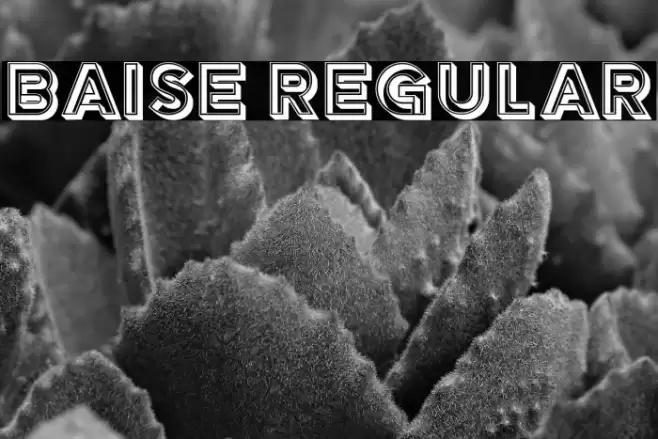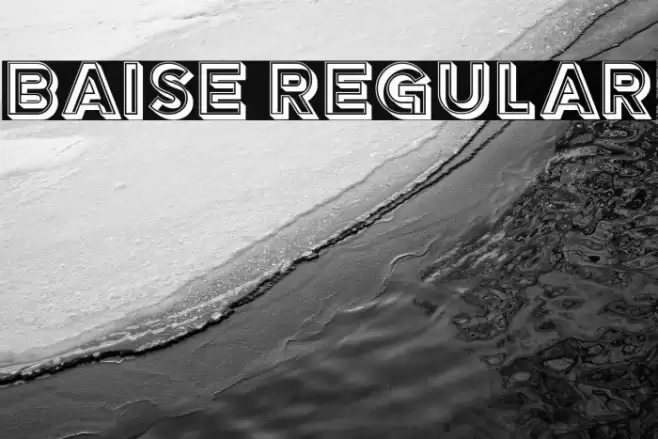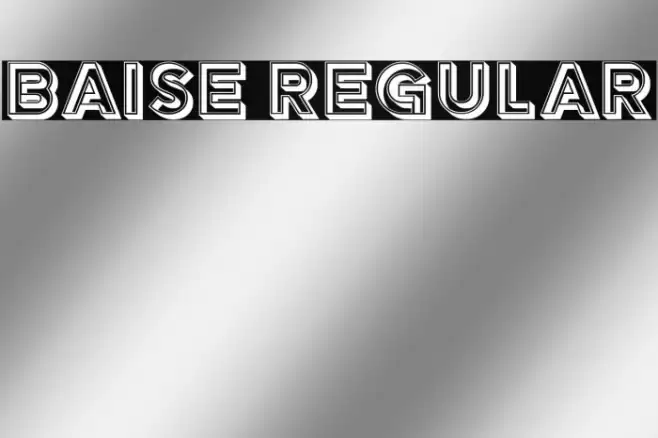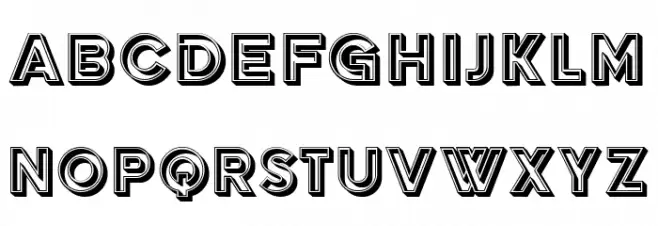
Baise Regular Font
Baise Regular Description
This font features a bold, geometric design with a distinct three-dimensional effect. Each character is outlined with multiple layers, creating a shadow-like appearance that adds depth and dimension. The uppercase letters are particularly striking, with clean lines and sharp angles that convey a sense of modernity and strength. The overall style is reminiscent of vintage signage, yet it maintains a contemporary edge. The font's unique structure makes it ideal for eye-catching headlines and logos, where its bold presence can be fully appreciated.
A bold, geometric font with a 3D effect and vintage-modern appeal from Uncategorized fonts.
- Proposed Projects: Ideal for branding, poster design, and any project requiring a strong visual impact.